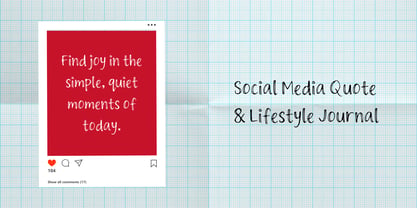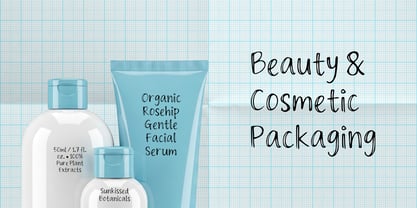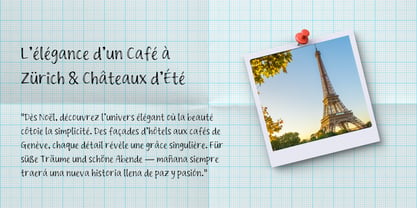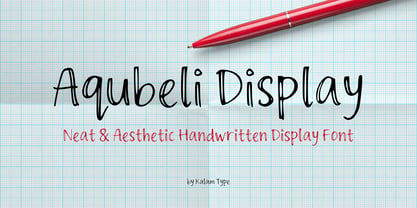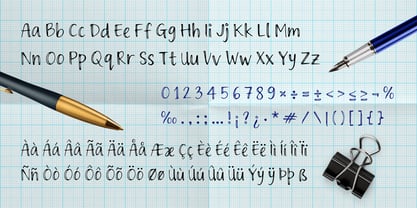
Aqubeli Display
by Kalam
The Aqubeli Display Font Family was designed by Wahyu Eka Prasetya, Moch Zamroni and published by Kalam. Aqubeli Display contains 2 styles and family package options. More about this family
Aqubeli Display is an endearing, neat handwritten display typeface defined by its soft, feminine personality and clean, balanced strokes. Designed collaboratively by Moch Zamroni and Wahyu Eka Prasetya under Kalam Type, Aqubeli bridges the gap between casual personal handwriting and professional editorial clarity.
The core concept behind Aqubeli Display is simple: capturing the authentic, gentle, and organized aesthetic of modern feminine handwriting without the uneven roughness typically found in organic script fonts. Each letterform is thoughtfully proportioned with smooth curves and consistent baseline alignment, ensuring maximum legibility across print and digital media.
Versatile Design Applications
Aqubeli Display brings an intimate, warm, and stylish handcrafted touch to a broad spectrum of design projects, including:
• Branding & Visual Identity: Ideal for beauty salons, boutique fashion labels, cosmetic packaging, artisanal cafes, and organic skincare brands.
• Stationery & Celebrations: Adds a personal, delicate flair to wedding suites, greeting cards, thank-you notes, and event invitations.
• Editorial & Publishing: Perfect for lifestyle magazines, self-care journals, recipe books, personal diaries, and children’s literature.
• Digital & Social Media: Stands out effortlessly in Pinterest graphics, Instagram quotes, vlog thumbnails, and creative portfolio headers.
Key Technical Features & Character Set
• Clean Handwritten Style: Neatly drawn letterforms crafted for high readability in titles, headers, and short blocks of text.
• Complete Glyph Set: Includes 257 carefully rendered glyphs containing uppercase and lowercase alphabets, numerals, standard punctuation, and essential symbols.
• Extensive Multilingual Support: Equipped with full accented characters supporting major Western and Central European languages.
• Seamless Font Pairing: Pairs naturally with modern geometric sans-serif typefaces (such as Poppins, Montserrat, or Plus Jakarta Sans) for clean contemporary branding, as well as elegant high-contrast serifs for classic editorial layouts.
Whether you are crafting a boutique lifestyle brand, styling an intimate wedding invitation, or designing modern social media visuals, Aqubeli Display delivers the perfect balance of chic femininity, warmth, and reliable functional clarity.